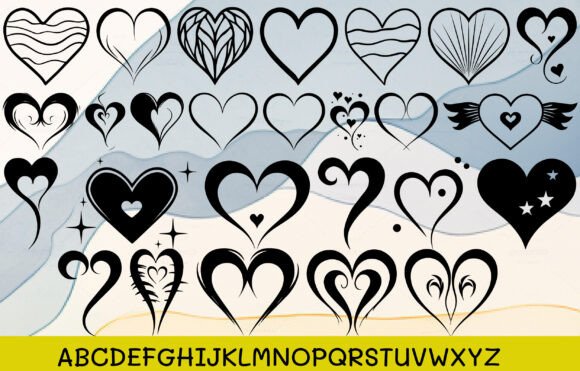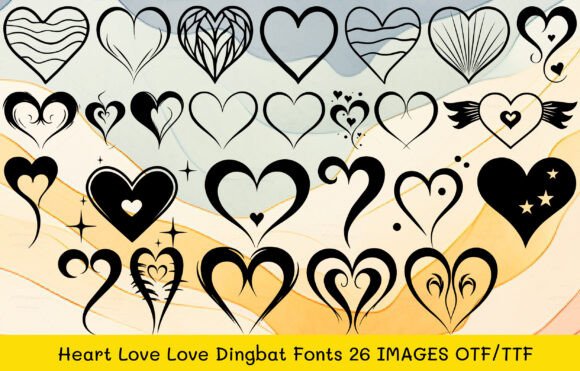
Heart Love Love Font: Add a Touch of Romance to Your Designs
Are you looking for a unique and creative way to add a touch of love to your digital projects? Look no further than the Heart Love Love Font, a charming dingbat font that features 26 heart-inspired star designs, each corresponding to a letter from A to Z. This delightful font is perfect for romantic crafts, love-themed invitations, Valentine’s projects, and more.
What is Heart Love Love Font?
Heart Love Love Font is a dingbat font that replaces traditional letters with heart-shaped designs, creating a beautiful and eye-catching effect. The font features 26 unique heart-inspired star designs, each corresponding to a letter from A to Z, making it easy to use and customize. Whether you’re a designer, crafter, or DIY enthusiast, this font is sure to bring charm and creativity to your projects.
Perfect for Romantic Crafts and Love-Themed Projects
The Heart Love Love Font is perfect for anyone looking to add a touch of romance to their digital creations. Use it to create beautiful love-themed invitations, Valentine’s Day cards, and romantic crafts. The font’s heart-inspired designs are sure to capture the essence of love and make your projects stand out.
Key Features of Heart Love Love Font
- 26 Unique Heart-Inspired Designs: Each letter from A to Z has its own unique heart-inspired star design, making it easy to create custom text.
Tips and Ideas for Using Heart Love Love Font
Here are some tips and ideas for using the Heart Love Love Font:
- Create Custom Valentine’s Day Cards: Use the font to create beautiful, one-of-a-kind Valentine’s Day cards for loved ones.
- Design Romantic Invitations: Add a touch of love to your wedding or event invitations with the Heart Love Love Font.
- Make Love-Themed Crafts: Use the font to create cute and quirky love-themed crafts, such as heart-shaped decorations or gift tags.
- Add a Personal Touch: Use the font to add a personal touch to your digital projects, such as social media graphics or blog posts.